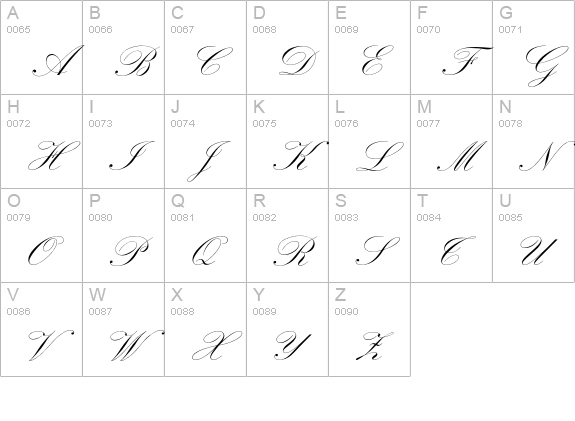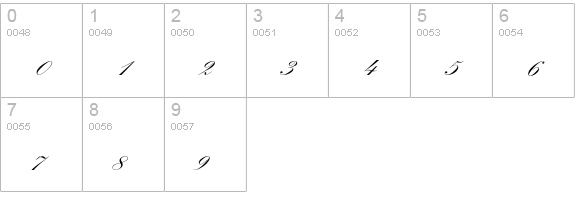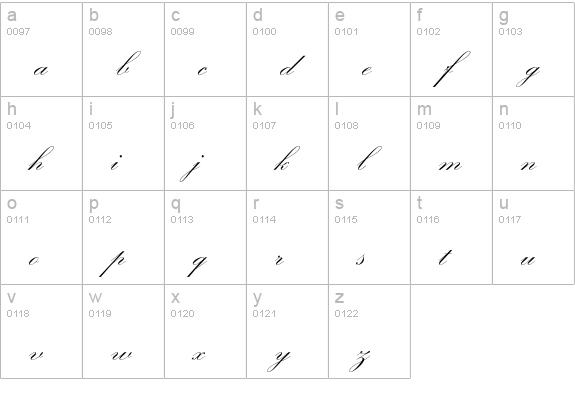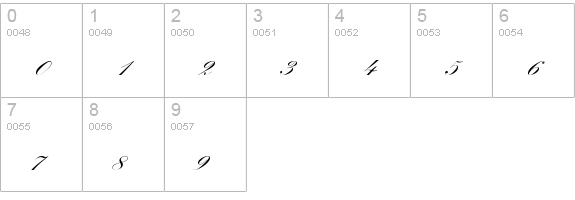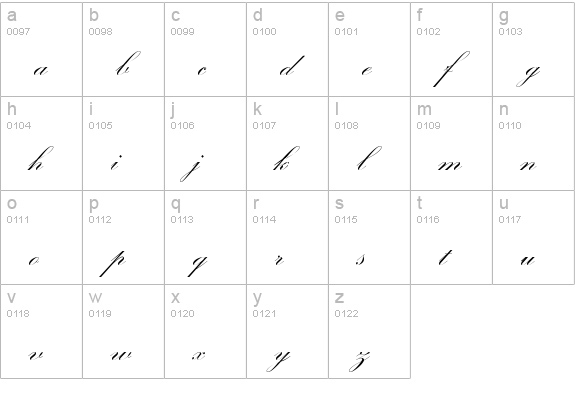
Kuenstler-Schreibschrift* 2 VERSION ROMAIN Bold Font Details
Kuenstler-Schreibschrift* 2 VERSION ROMAIN Bold is a strong, high-contrast variant in the Kuenstler typeface family \xE2\x80\x94 well suited to headlines, attention-grabbing titles, and strong calls-to-action.
Kuenstler-Schreibschrift 2 VERSION ROMAIN Bold font is a striking and elegant typeface that exudes sophistication and style. With its bold and distinctive letterforms, this font is perfect for making a statement in your designs. The clean lines and classic look of this font make it versatile and suitable for a wide range of projects. What's even better is that Kuenstler-Schreibschrift 2 VERSION ROMAIN Bold font is available for free download at FontsMarket.com. Now you can add a touch of class to your designs without breaking the bank. Whether you're working on a logo, branding, or any other creative project, this font is sure to make a lasting impression. Download it today and elevate your designs with this timeless and sophisticated typeface.